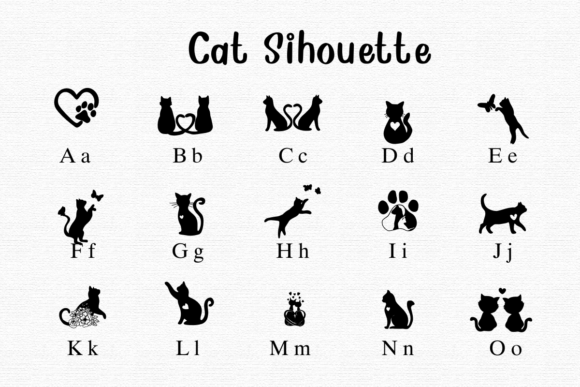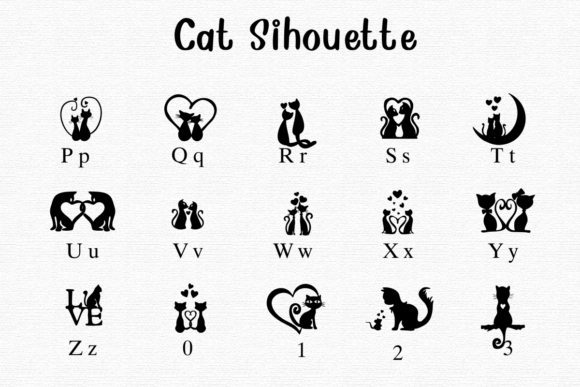
Cat Silhouette Font
Cat Silhouette is a fun and charming dingbat font. It features adorable pairs of cats in love, shown in simple, black silhouettes. This font is perfect for adding a sweet, cat-themed touch to your designs.